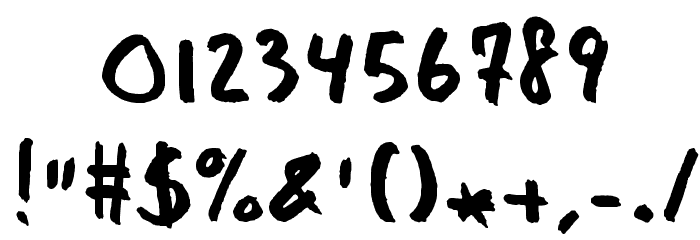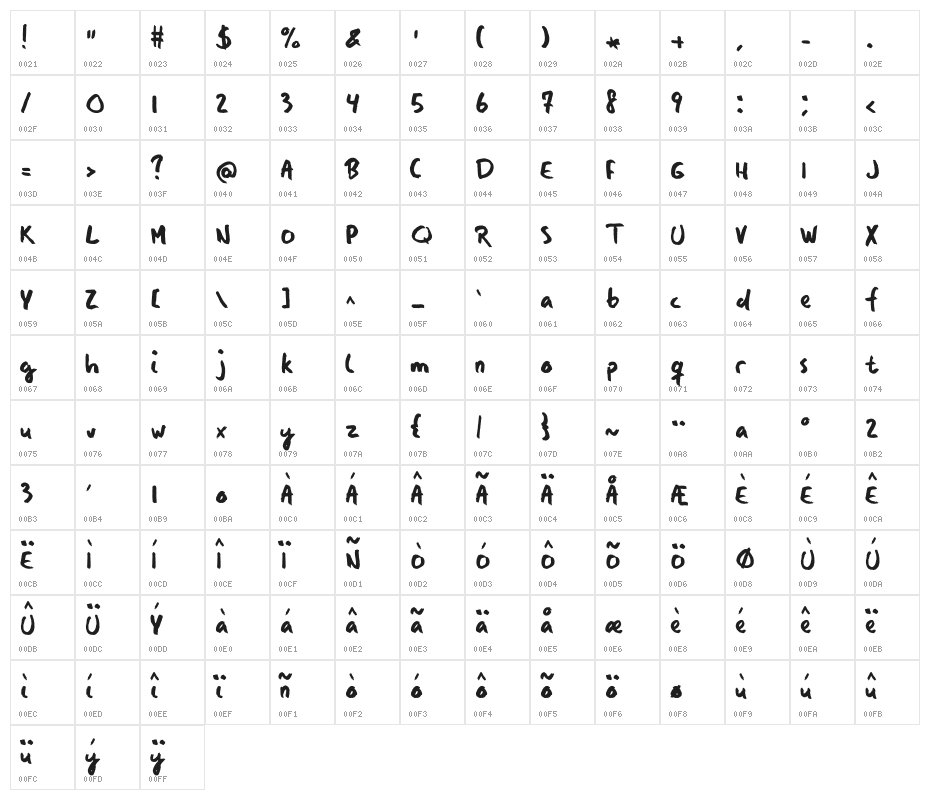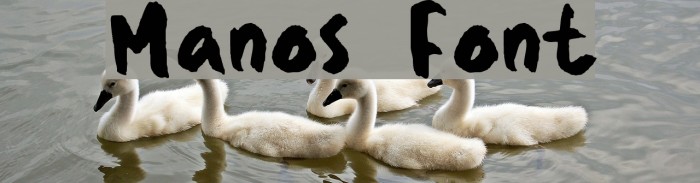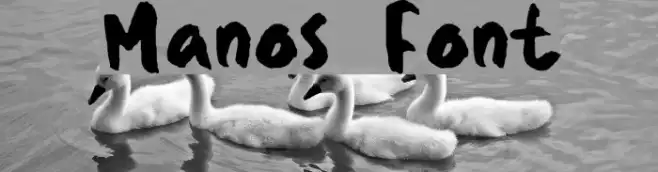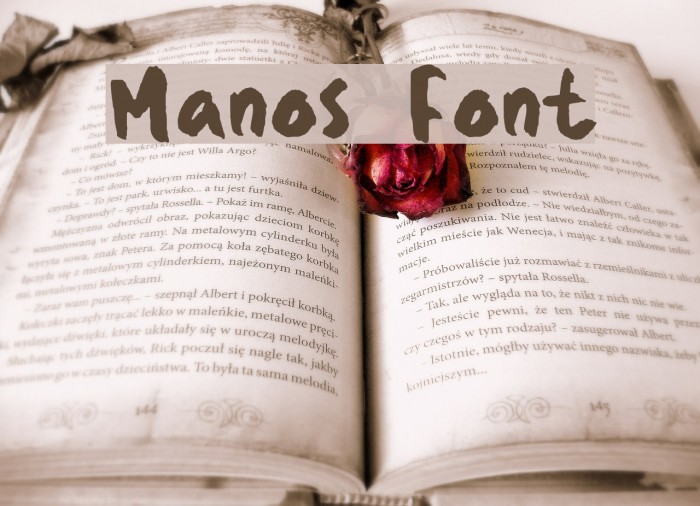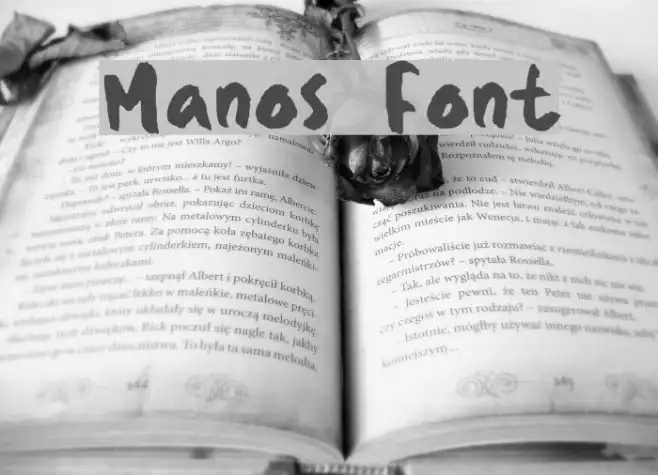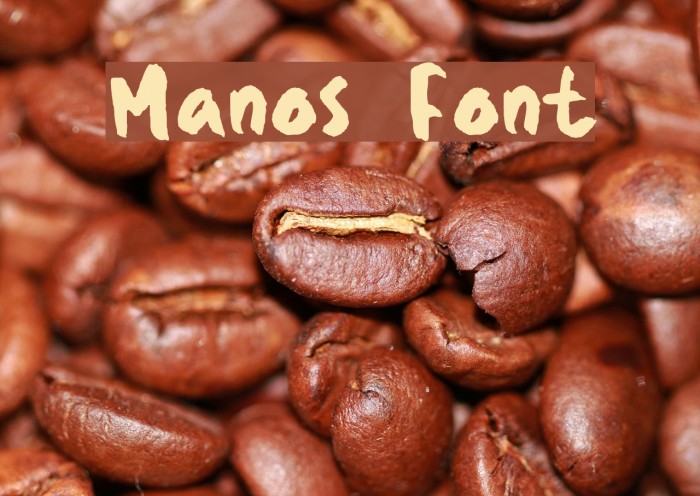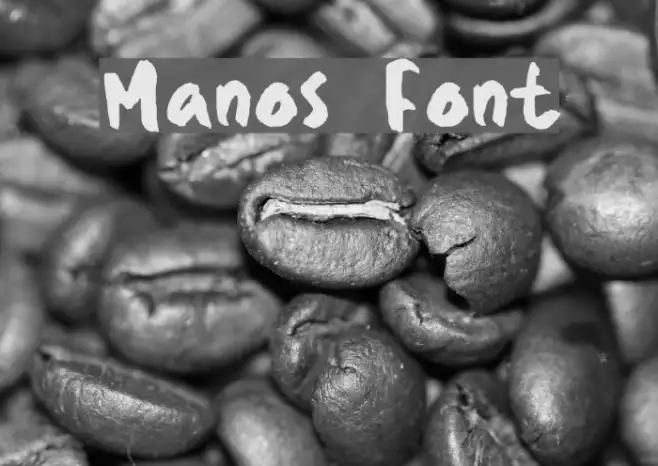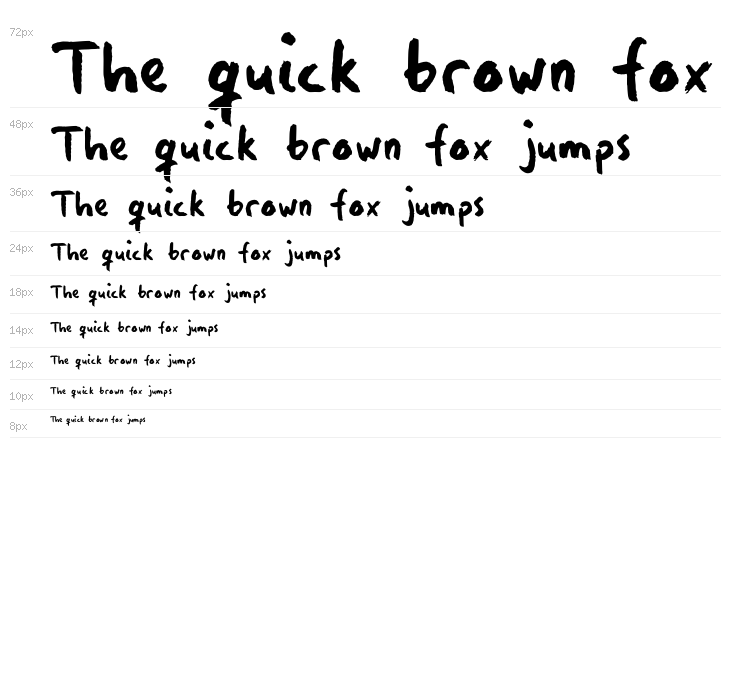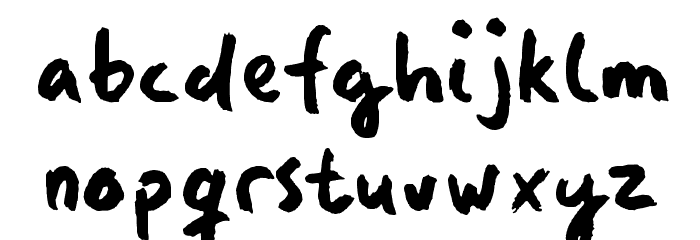
Manos Font
Manos Description
This font exhibits a bold, handwritten style with a playful and informal appearance. The letters are crafted with a brush-like texture, giving them a dynamic and energetic feel. The uppercase and lowercase characters maintain a consistent style, with slightly irregular shapes that add to the font's charm. The numbers and special characters follow the same aesthetic, ensuring a cohesive look across all elements. The strokes are thick and varied, contributing to a high contrast between the thick and thin parts of each character. This font is ideal for projects that require a personal touch or a casual, artistic vibe.